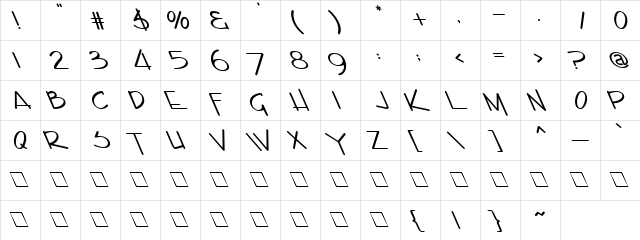
Enviro Caps Lefty Regular
Design Context for Enviro Caps Lefty Typeface
Enviro Caps Lefty is a composed and adaptable typeface that performs quietly and consistently across a wide range of design contexts.
Pro Tip: Use Enviro Caps Lefty in both headline and body roles to test its range before committing to a single application.